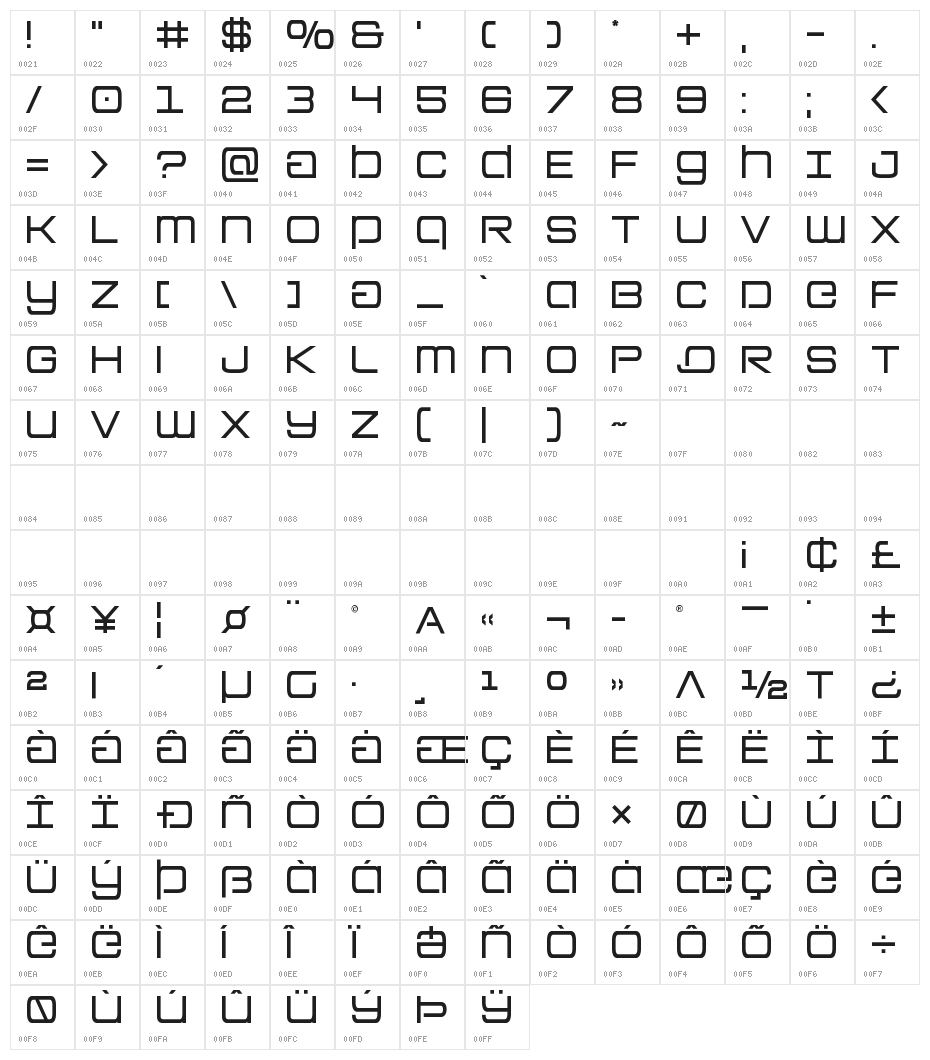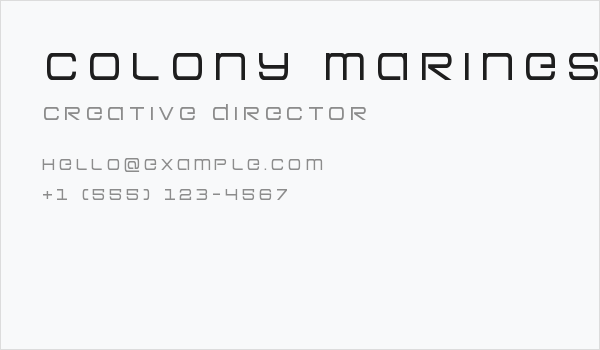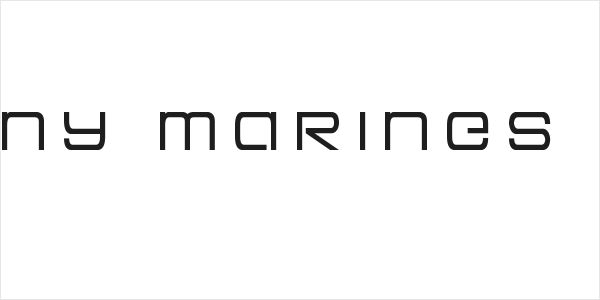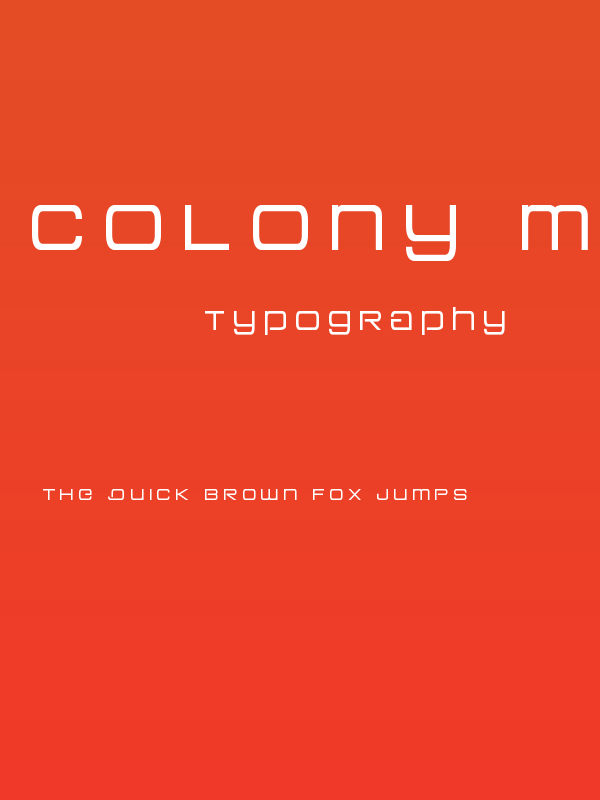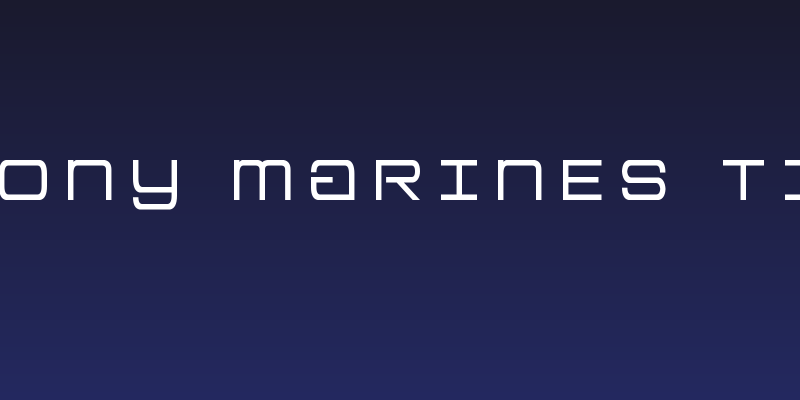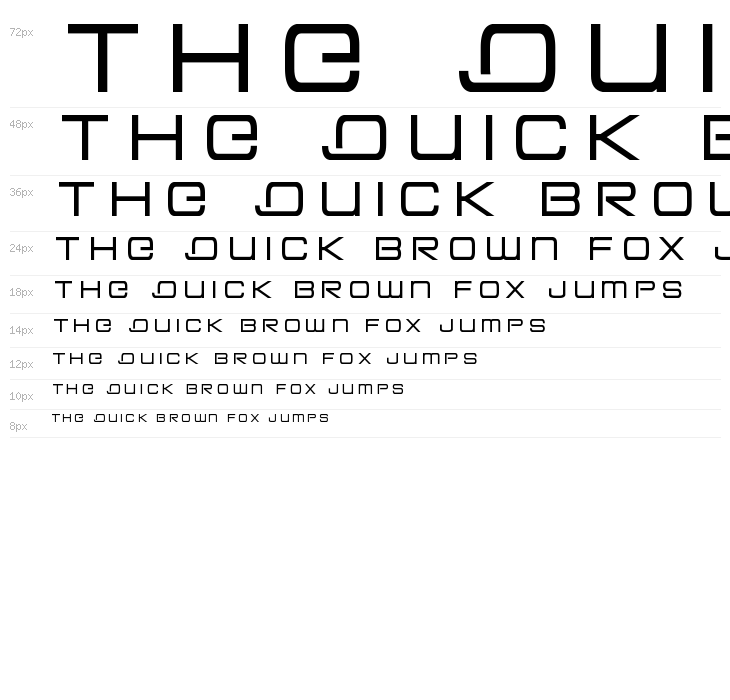
Colony Marines Title Font
This font features a futuristic and geometric design, characterized by its clean lines and minimalistic style. The characters are constructed with a uniform stroke width, giving it a monospaced appearance. The uppercase and lowercase letters share a similar height, enhancing its modern aesthetic. The numerals and special characters are designed to complement the overall style, maintaining the geometric theme. This font is ideal for projects that require a contemporary and tech-inspired look, such as digital interfaces, video game titles, or sci-fi themed designs.
Proposed ProjectsIdeal for digital interfaces, video game titles, and sci-fi themed designs.